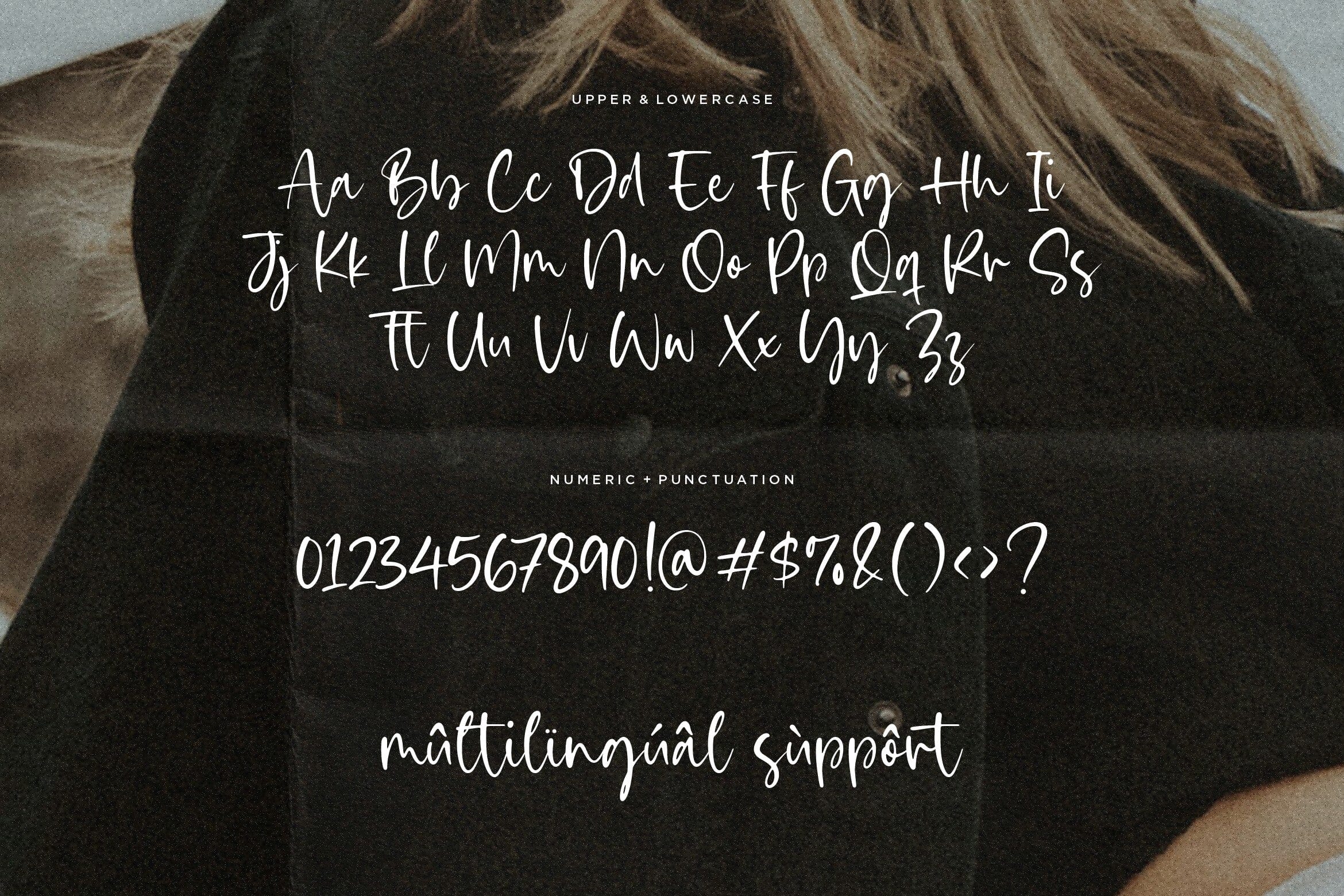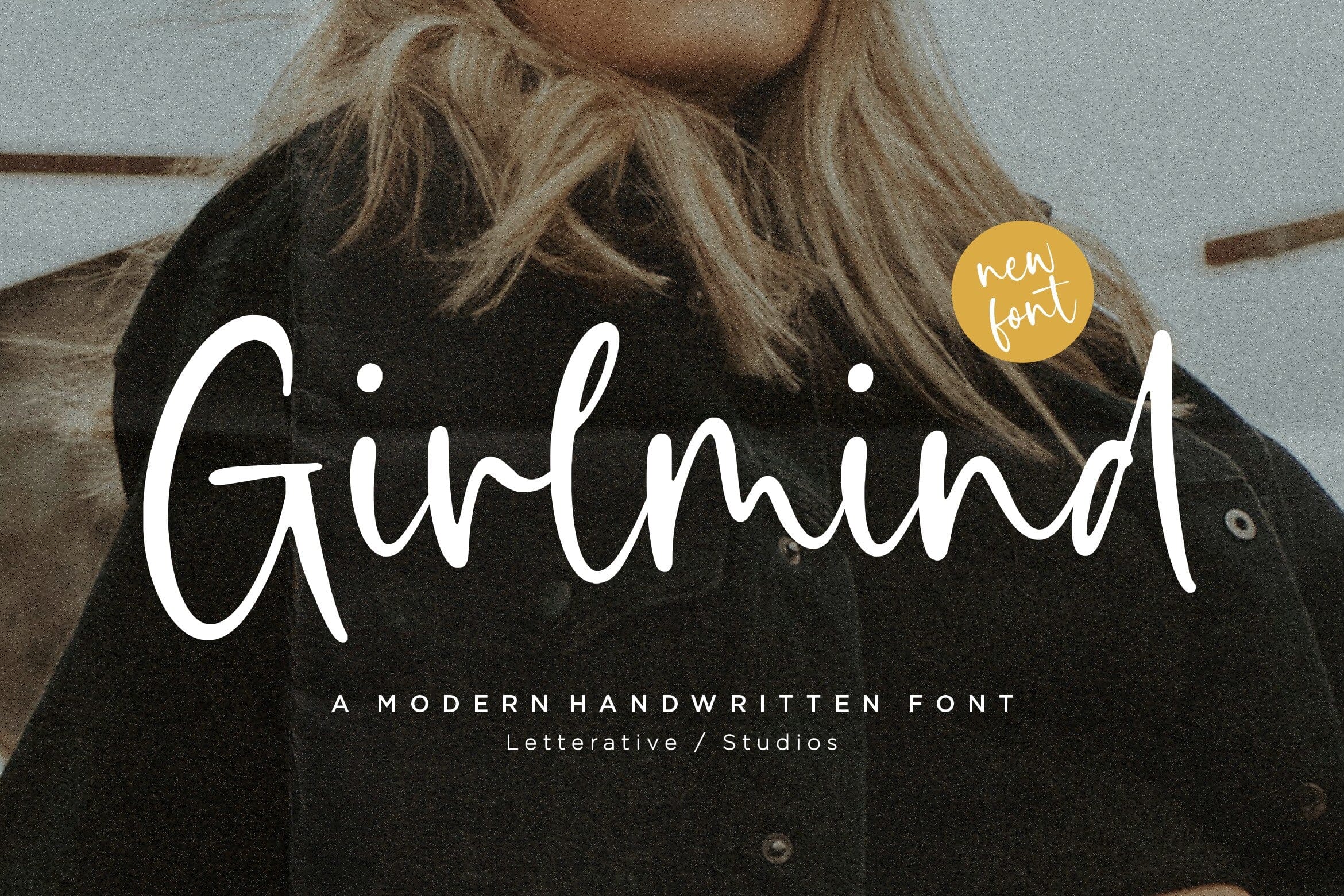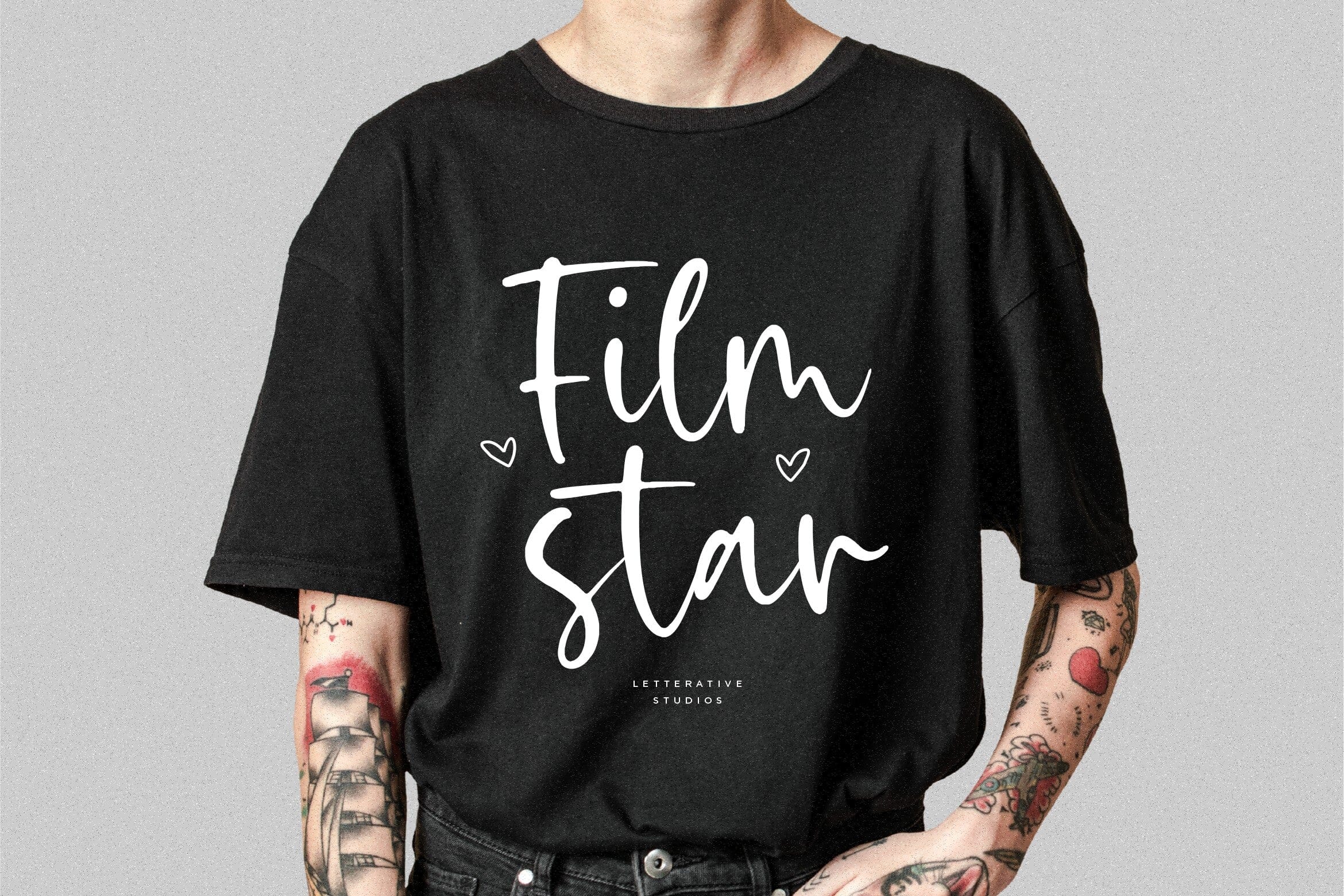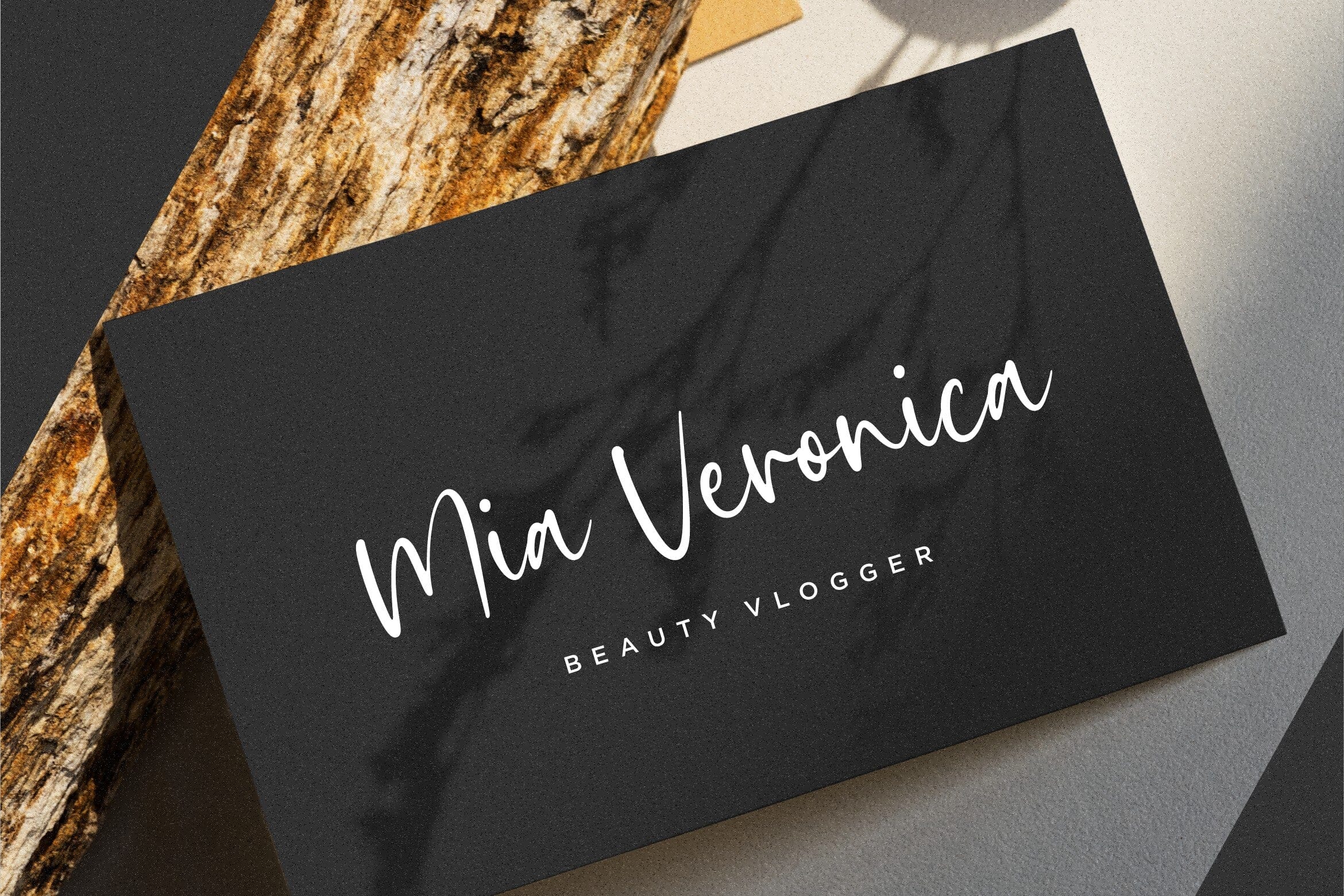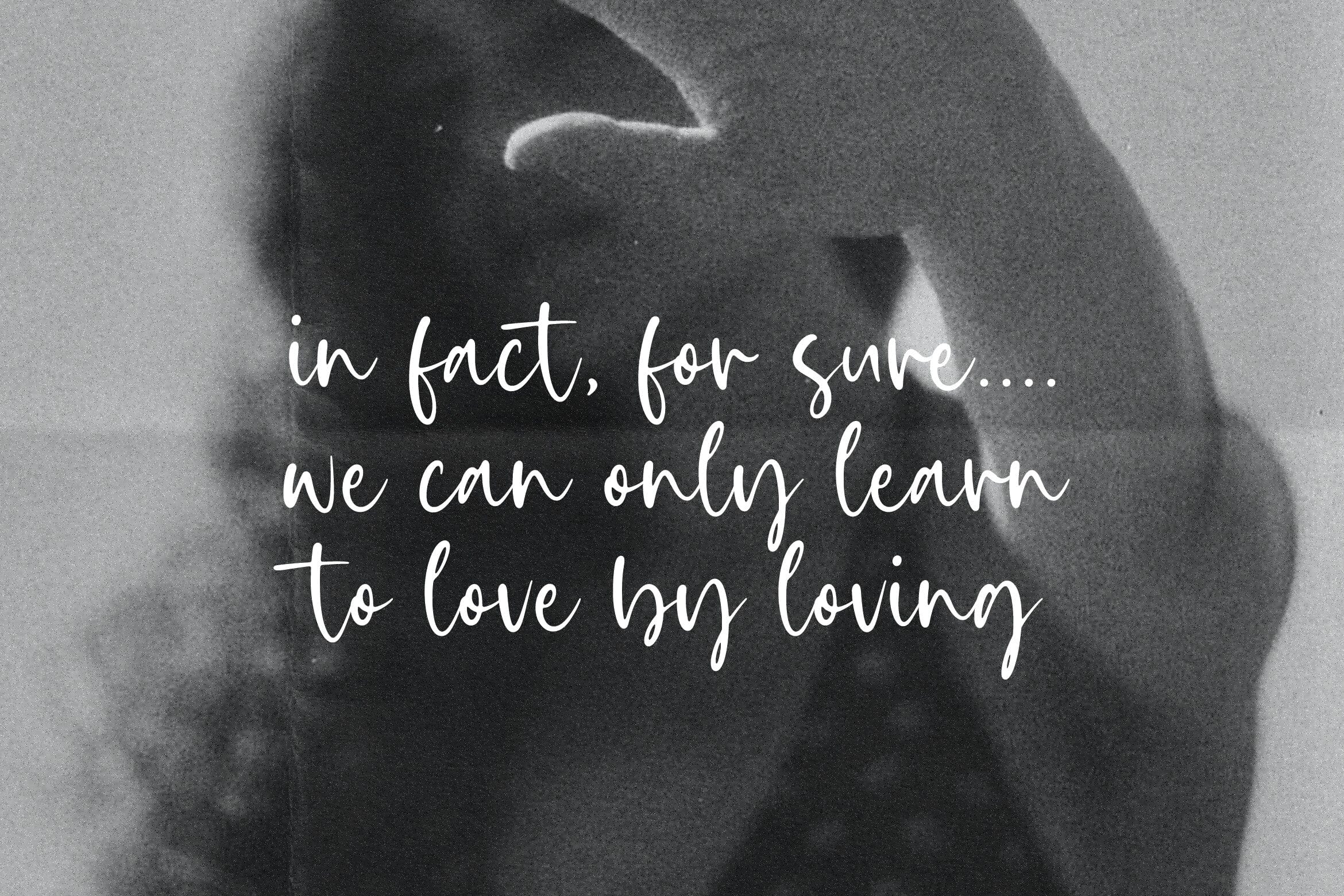
Girlmind Modern Handwritten Font
About Girlmind Modern Handwritten Font
Introducing by Letterative Studio : Girlmind Font Girlmind is a Modern Handwritten Font. Whether you’re using it for crafts, digital design, presentations, or making greeting cards, this font has the potential to become your favorite go-to font, no matter the occasion! This font includes : – TTF, OTF and WOFF – also multilingual support Enjoy the font! Feel free to comment or feedback Send me PM or email Thank you!